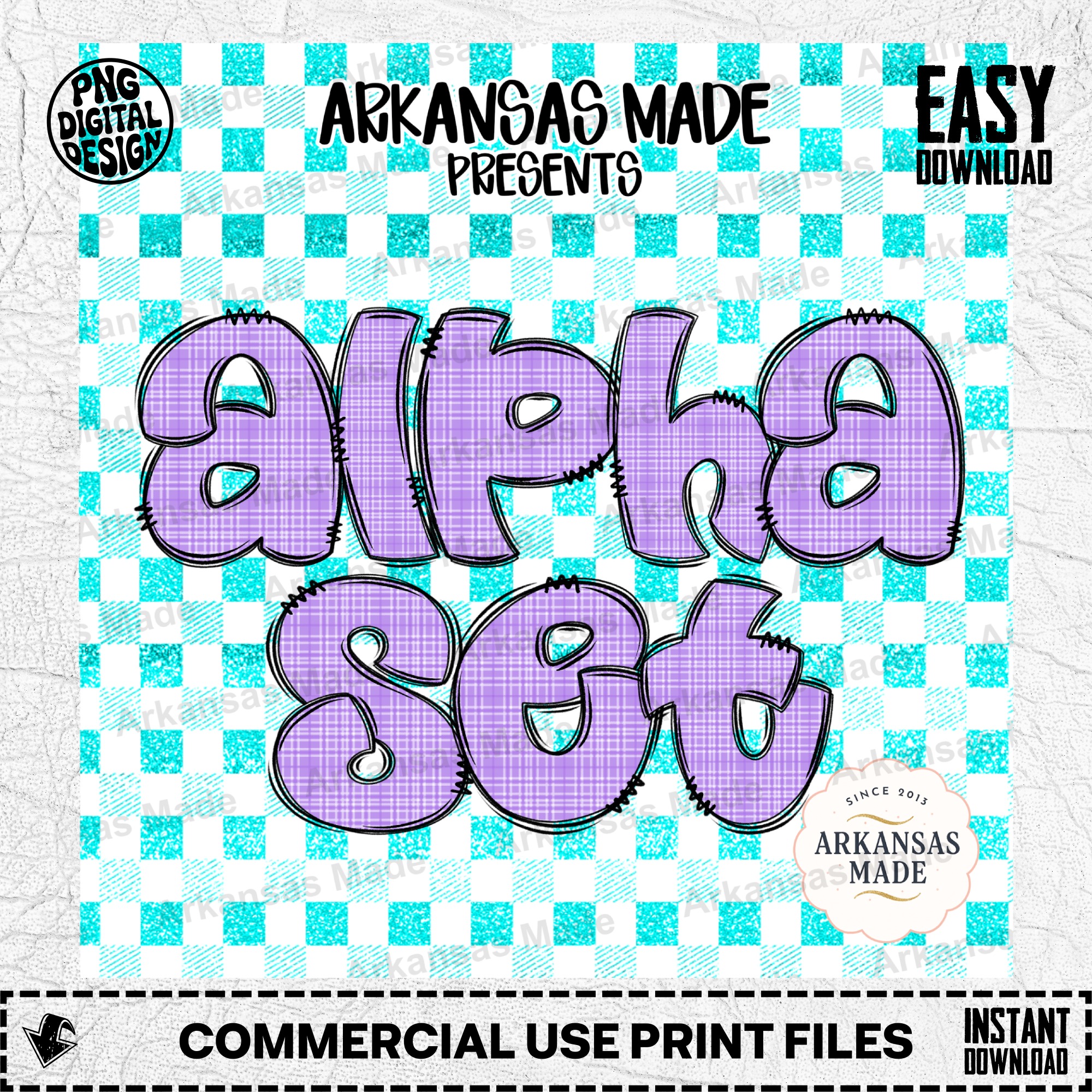
Elevate creations with this Purple Plaid Bubble Letter PNG Alpha Set, featuring a doodle stitch effect. Perfect for custom apparel, digital crafts, and personalized gifts.
This delightful digital alphabet brings a playful yet preppy vibe to any project, ideal for crafters, teachers, and small business owners. Imagine personalized tumblers, trendy t-shirts, or unique classroom decor. A fantastic resource for DIY enthusiasts looking to add a whimsical touch. Great for back-to-school items or any occasion needing a touch of handmade charm.